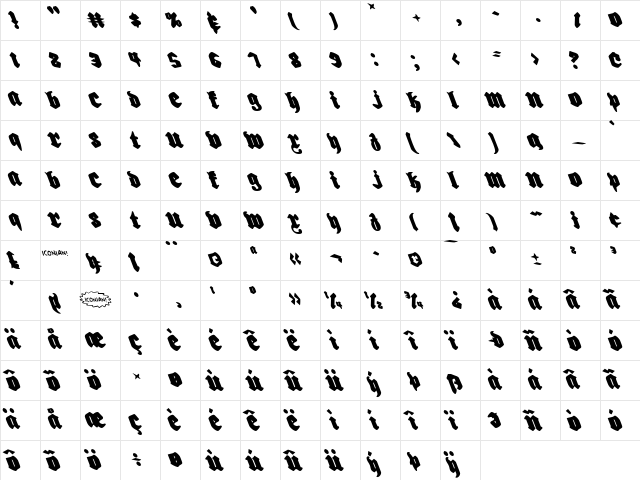
Bierg䲴en Leftalic Leftalic
Design Context for Bierg䲴en Leftalic Typeface
Bierg䲴en Leftalic is a composed and adaptable typeface that performs quietly and consistently across a wide range of design contexts. The slanted form adds forward momentum and visual energy.